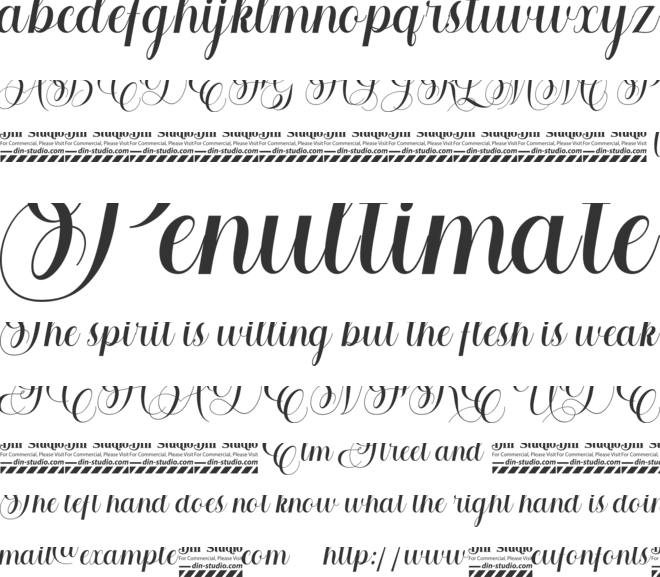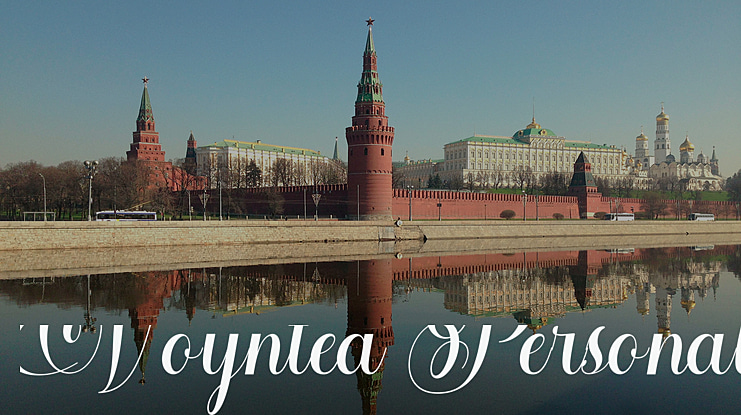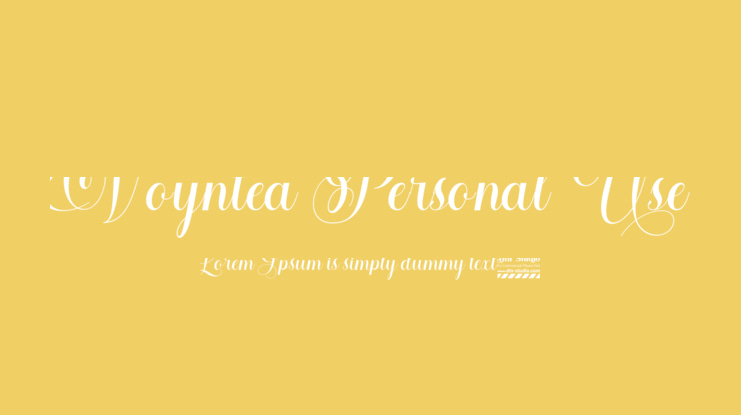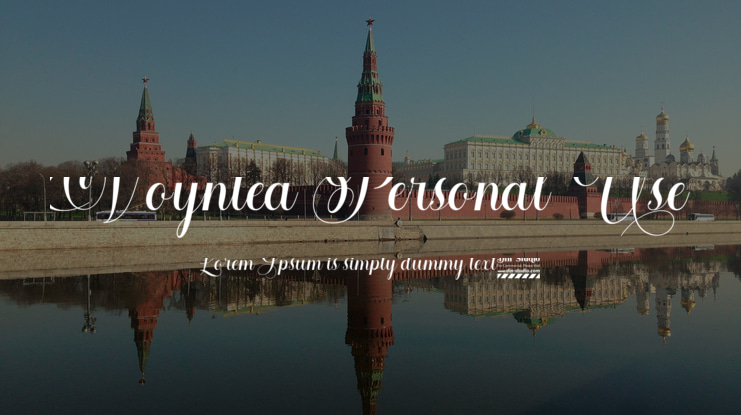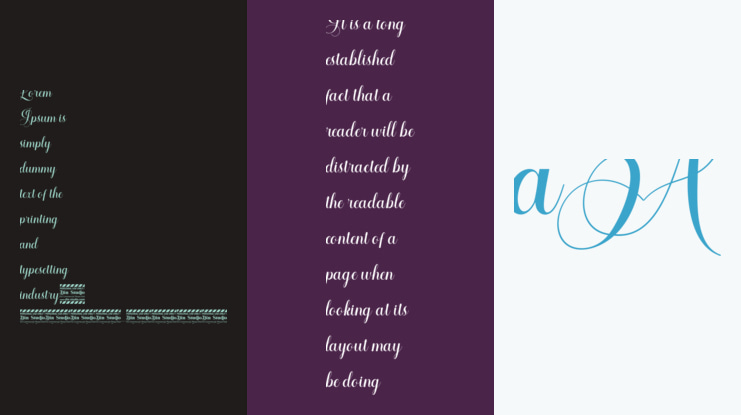
Voyntea is a elegant calligraphy with natural and handwritten style. It brings a beautiful and modern typeface. Made for any professional project branding. It is the best for logos, branding, wedding and quotes.